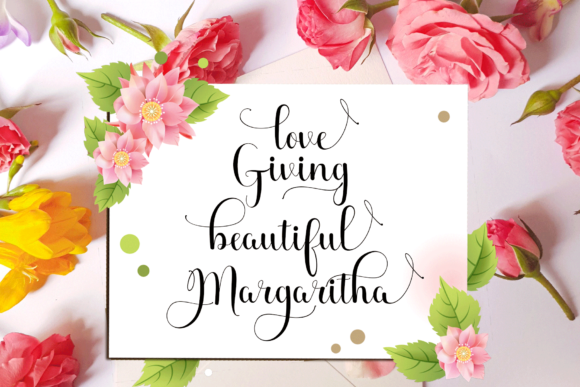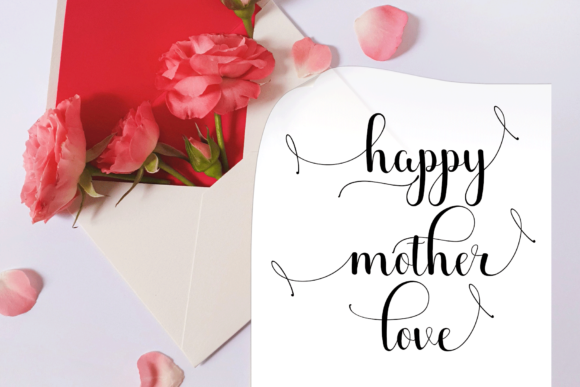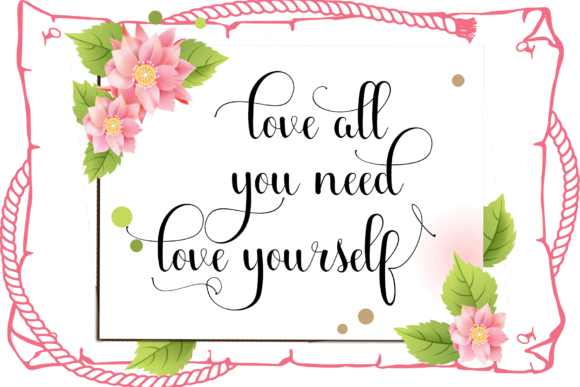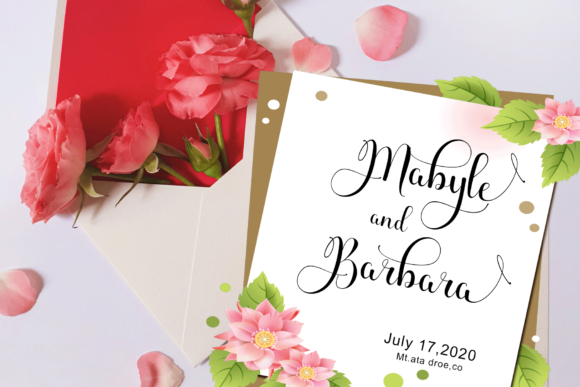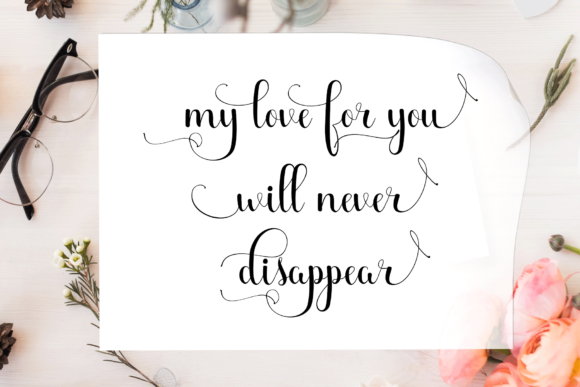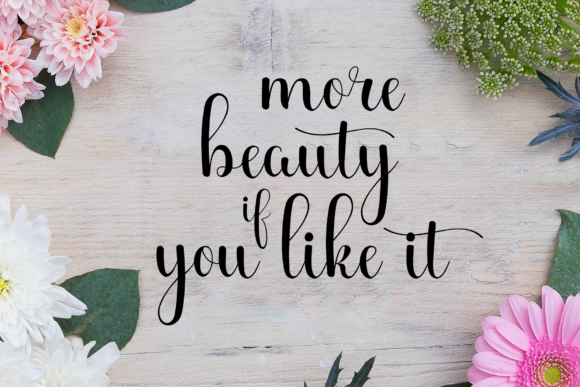
Introduction to Beauty Maheyrah Font
Beauty Maheyrah is a classic calligraphy font that will easily add a charming feel to your next design idea.
Fall in love with its romantic charm .